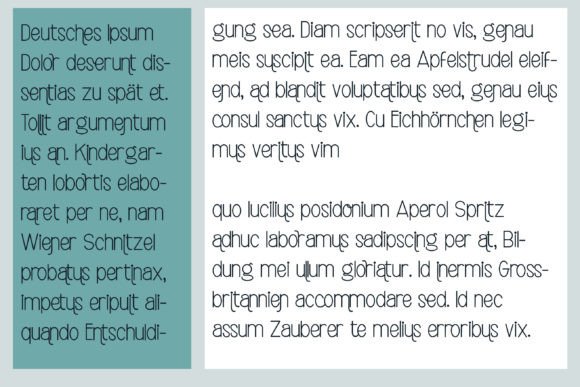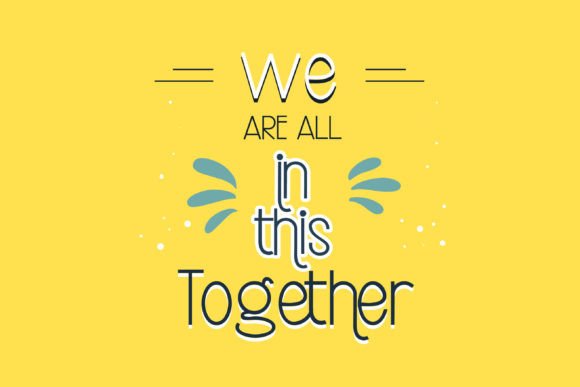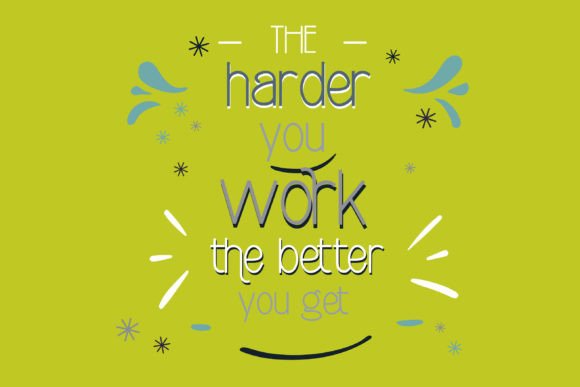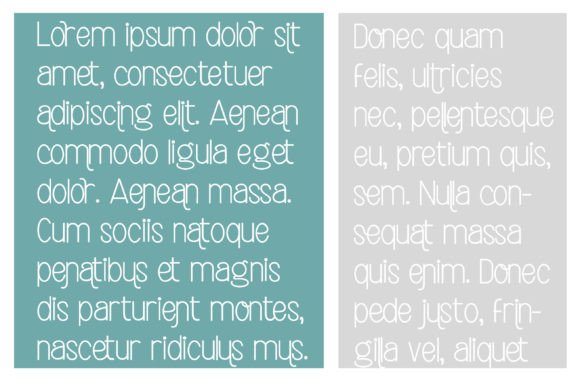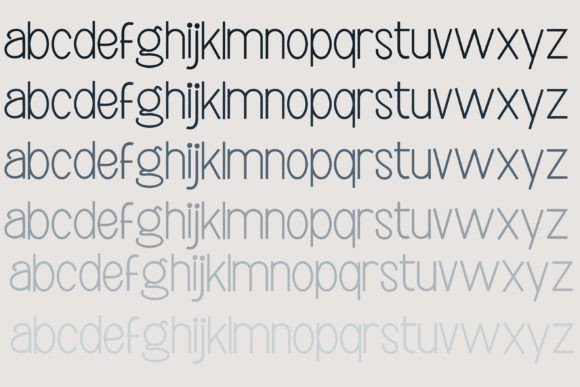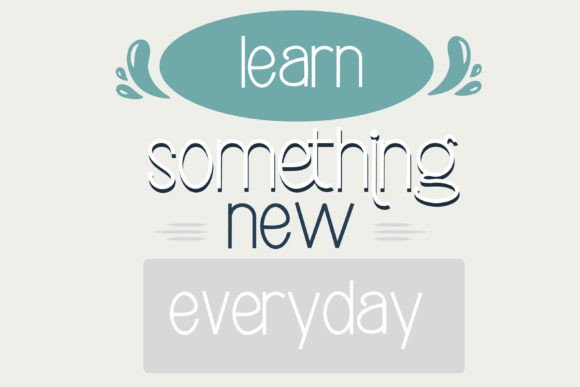
A Splash of Whimsy: Unveiling Citrus Salad Font
Have you ever found yourself daydreaming about the perfect handwritten font to adorn your wedding invitations or holiday cards? I know I have! There’s something special about a beautifully crafted, handwritten font that adds a touch of personality to your designs. For designers and creatives alike, the search for that perfect font can be a never-ending journey.
Enter Citrus Salad Font, a delightful, hand-crafted sans serif font that’s bursting with character. With its flourishes and alt case flourished versions of each lowercase letter, this font is perfect for adding a playful, whimsical touch to your designs. Whether you’re creating a wedding invitation, a birthday card, or a menu for a special event, Citrus Salad Font is sure to bring a smile to your face and a touch of elegance to your designs.
Citrus Salad Font Key Features
- Font Family: Citrus Salad Font is a unique, hand-drawn typeface with a citrus-inspired design.
- Character Count: The font contains a wide range of characters, including uppercase and lowercase letters, numerals, and punctuation marks.
- Size: Available in 6 different font sizes, ranging from 12 to 72 points, providing flexibility for various design applications.
- Resolution: Optimized for high-resolution displays, making it suitable for digital and print media.
- Unique Characteristics: Citrus Salad Font features a distinctive, hand-drawn style with intricate details and textures, adding a touch of whimsy to any design.
Citrus Salad Font Review
Overall, I think the Citrus Salad Font has some great qualities, but it also falls short in a few areas.
- Unique and Playful Design: The Citrus Salad Font has a fun, energetic feel that would be perfect for creative projects or branding.
- Legibility: The font is surprisingly clear and easy to read, making it a great choice for body text or headlines.
- Customization Options: The font offers a range of customization options, including bold, italic, and strikethrough styles.
- Limited Font Size Range: The font only works well at medium to large font sizes, making it less suitable for small text or titles.
- Overly Bright Colors: The bright, citrus-inspired colors may not be suitable for all projects or branding.
- Lack of Professionalism: The font’s playful design may not be taken seriously in professional or formal contexts.
Overall, I think the Citrus Salad Font is a fun and unique option for creative projects, but it may not be the best choice for more professional or formal work. With some careful consideration and customization, it can be a great addition to your design arsenal.
Some common use cases for Citrus Salad Font include:
- Creatives and designers looking for a unique and playful font.
- Food bloggers and chefs who want to add a touch of whimsy to their recipes.
- Marketing and branding professionals who want to create eye-catching graphics and social media posts.
Some tips for getting the most out of Citrus Salad Font include:
- Pairing it with bright and bold colors to create a visually appealing contrast.
- Using it in creative and playful ways, such as in food illustrations or design elements.
- Experimenting with different font sizes and styles to add visual interest. Alternatives to Citrus Salad Font
- Use the font for menu item headings, such as “Fresh Lemonade” or “Citrus Herb Salad.”
- Pair the font with a clean and modern sans-serif font for body text to create a visually appealing contrast.
- Emphasize key ingredients and flavors with bold or italic text using Citrus Salad Font.
- Use a bright and citrusy color scheme, such as shades of yellow and orange, to match the font’s energetic vibe.
- Add illustrations of citrus fruits or herbs to enhance the menu’s visual appeal.
- Use the font for the wedding invitation’s main title, such as “Sunshine and Love.”
- Pair the font with a elegant and cursive script font for the invitation’s details, such as the wedding date and location.
Creative Project Ideas using Citrus Salad Font
Project 1: Citrus-Inspired Menu Board
Create a vibrant and appetizing menu board for a restaurant or café using Citrus Salad Font. This font is perfect for highlighting citrus-based dishes and drinks.
How to use Citrus Salad Font:
Project 2: Citrus-Themed Wedding Invitation
Create a unique and refreshing wedding invitation using Citrus Salad Font. This font is perfect for a spring or summer wedding theme.
How to use Citrus Salad Font: